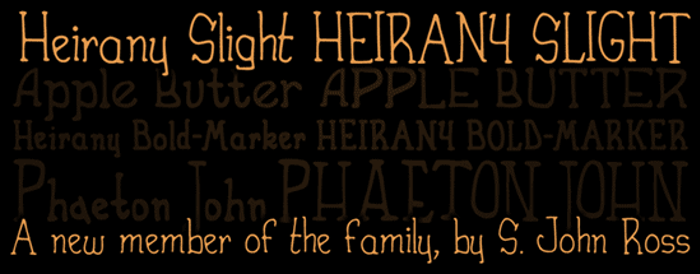
Heirany Font
16 years agoVery Chic! There is an uneven baseline that isnt as visible in bold face. Very tidy, and out of the ordinairy!
Interesting. The uneven baseline can be appealing (not so apparent in bold face). Clean, communicates well, and offers something out of the ordinary. I give it a thumbs up.